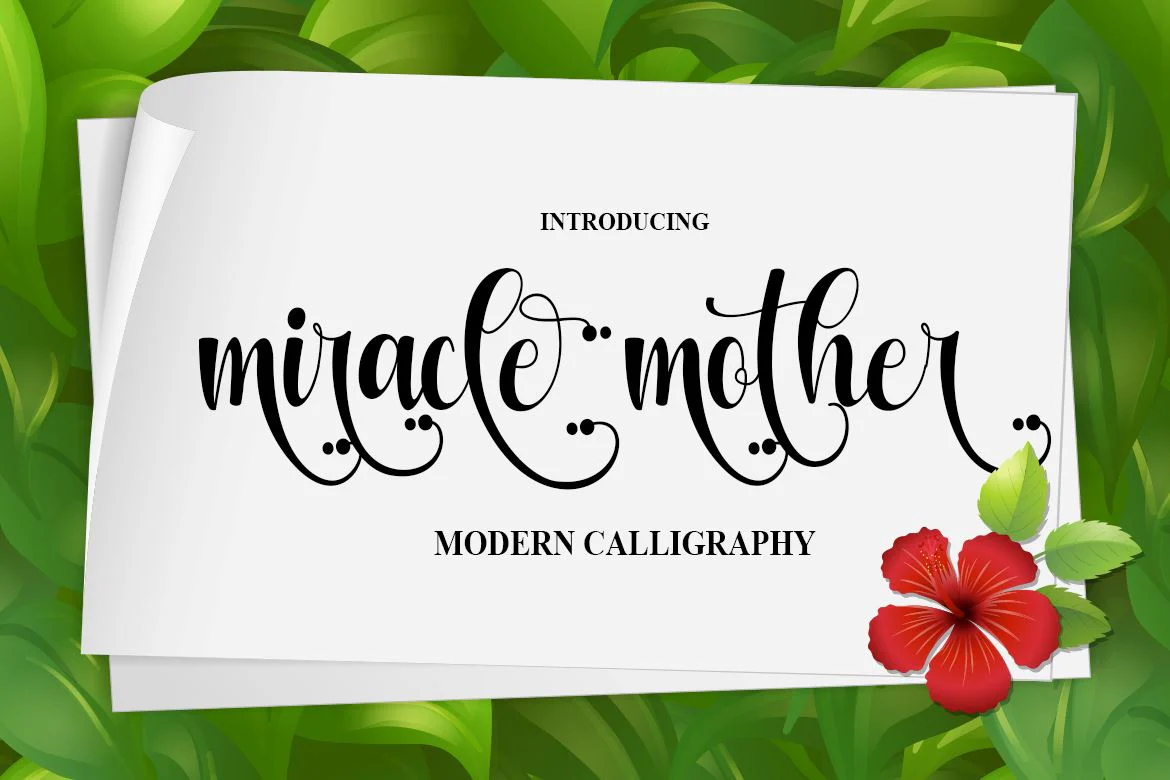
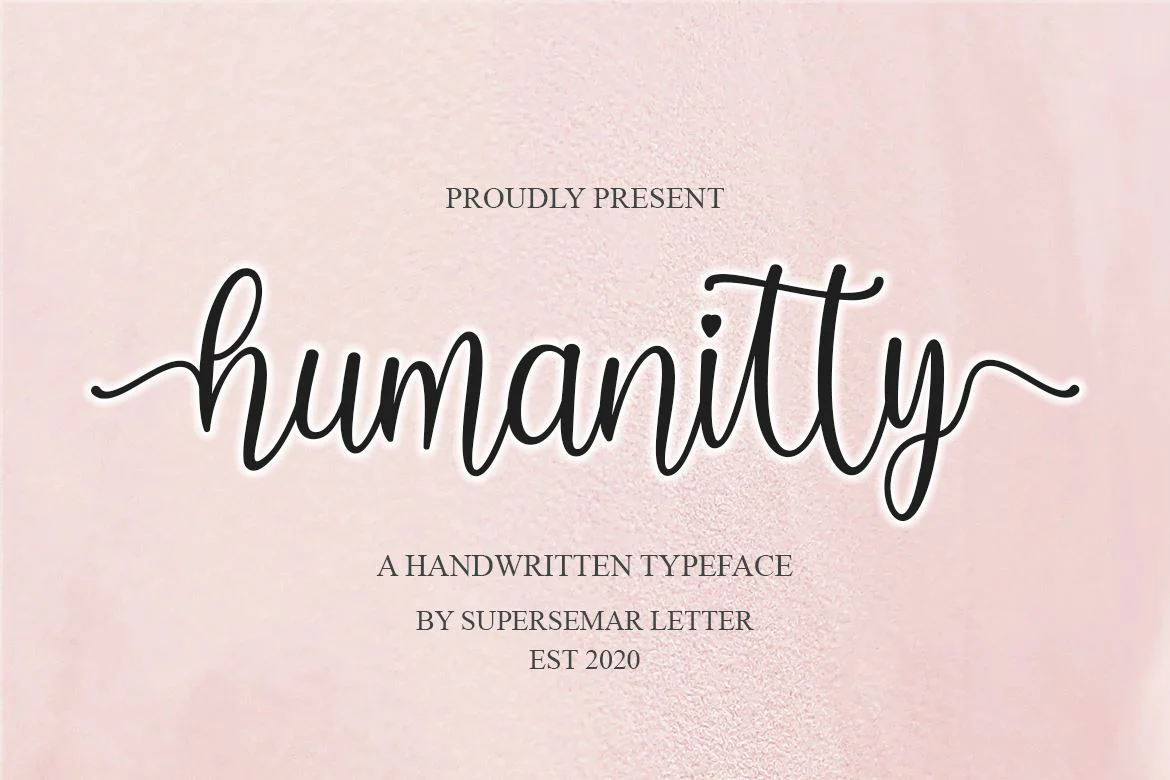
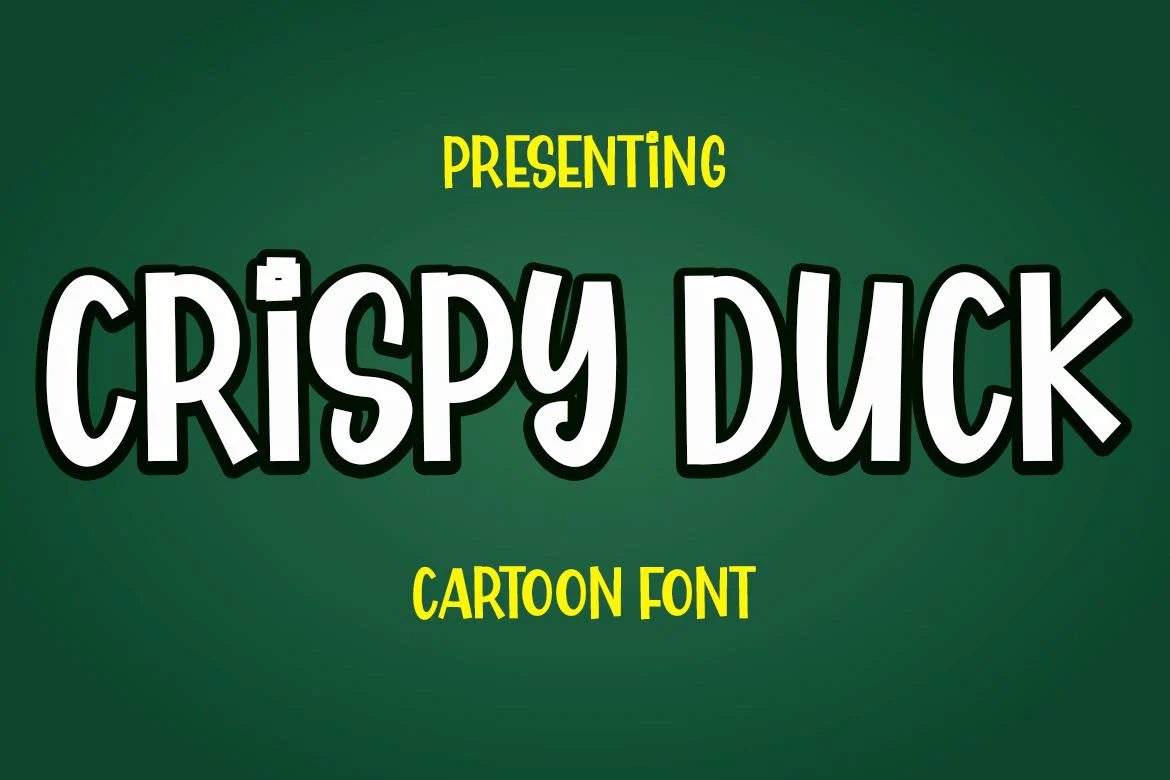
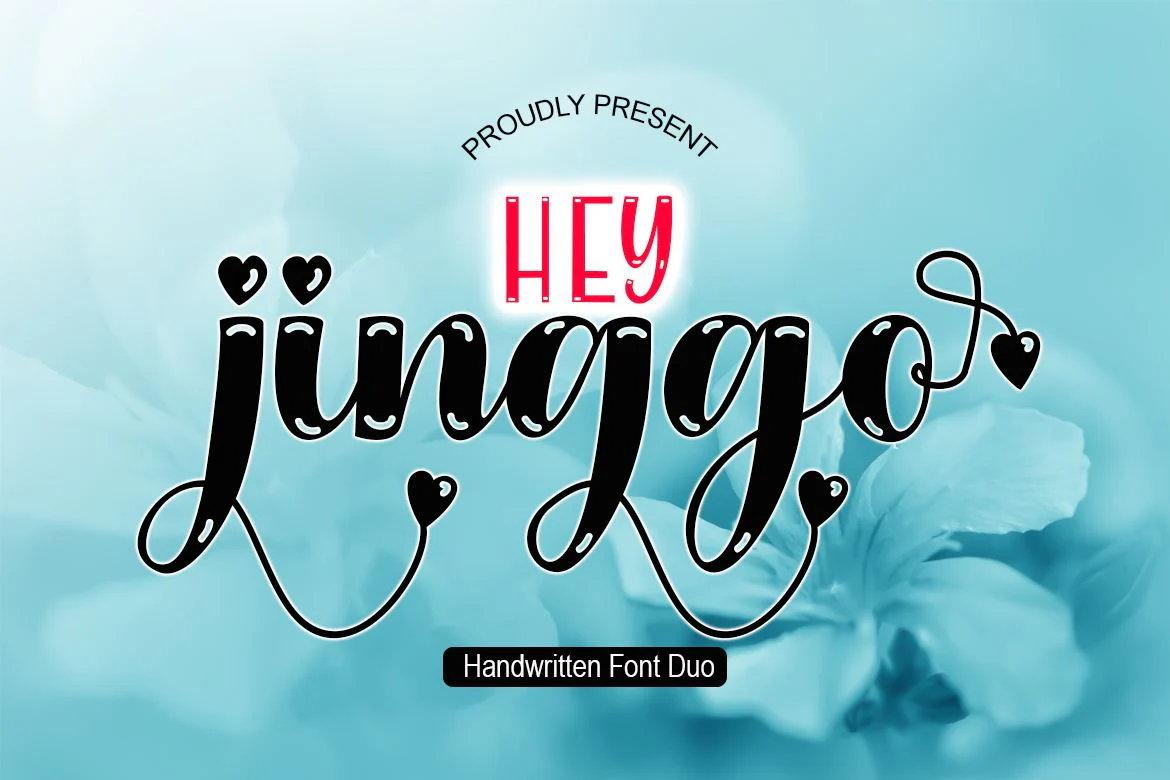
Beautiful Work Font Bundle
Best Handwriting and Stunning fonts bundle is here!
Beautiful Work Font Bundle - a font bundle of 25 font consisting of beautiful, cute and fun scripts, fonts for creating designs. Inside, there are fonts that are perfect for perfecting your designs. get it now or the price will return to normal.
suitable for design, logo, social media, branding, advertising, product design, handwritten quotes, product packaging, headers, posters, merchandise and other designs.
+ Standard glyphs
+ Ligature
+ Multilingual Accent